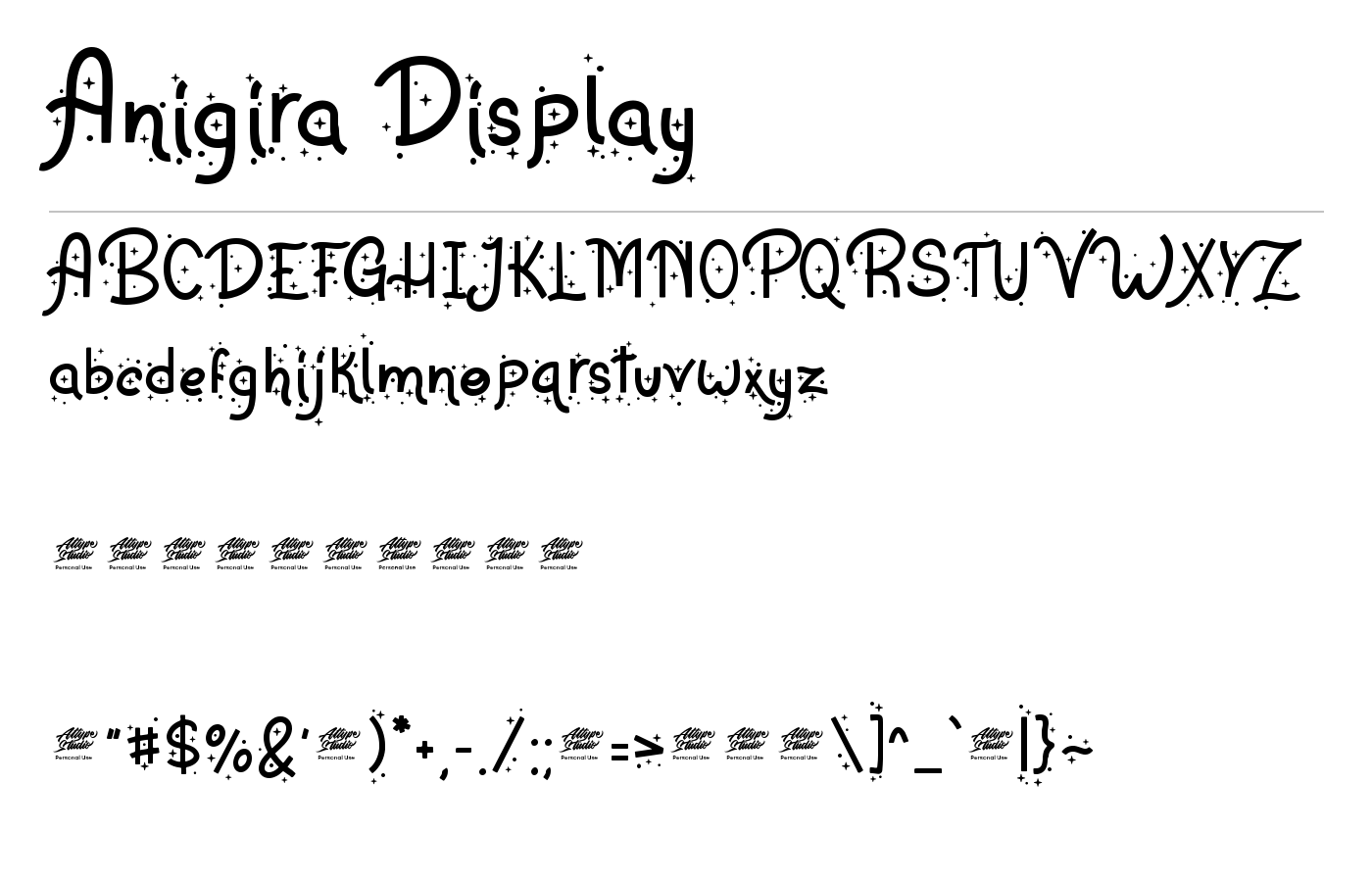
Anigira is a playful and whimsical sans serif display font with a light, slightly condensed weight and a charming hand-drawn feel. Its unique detailing, like scattered sparkles around the letters and quirky shapes, gives it a magical and friendly personality, perfect for creative and fun designs. This font shines in logos, invitations, children’s books, or any project looking to add a touch of joyful charm and individuality.
Anigira Font
About Anigira Font